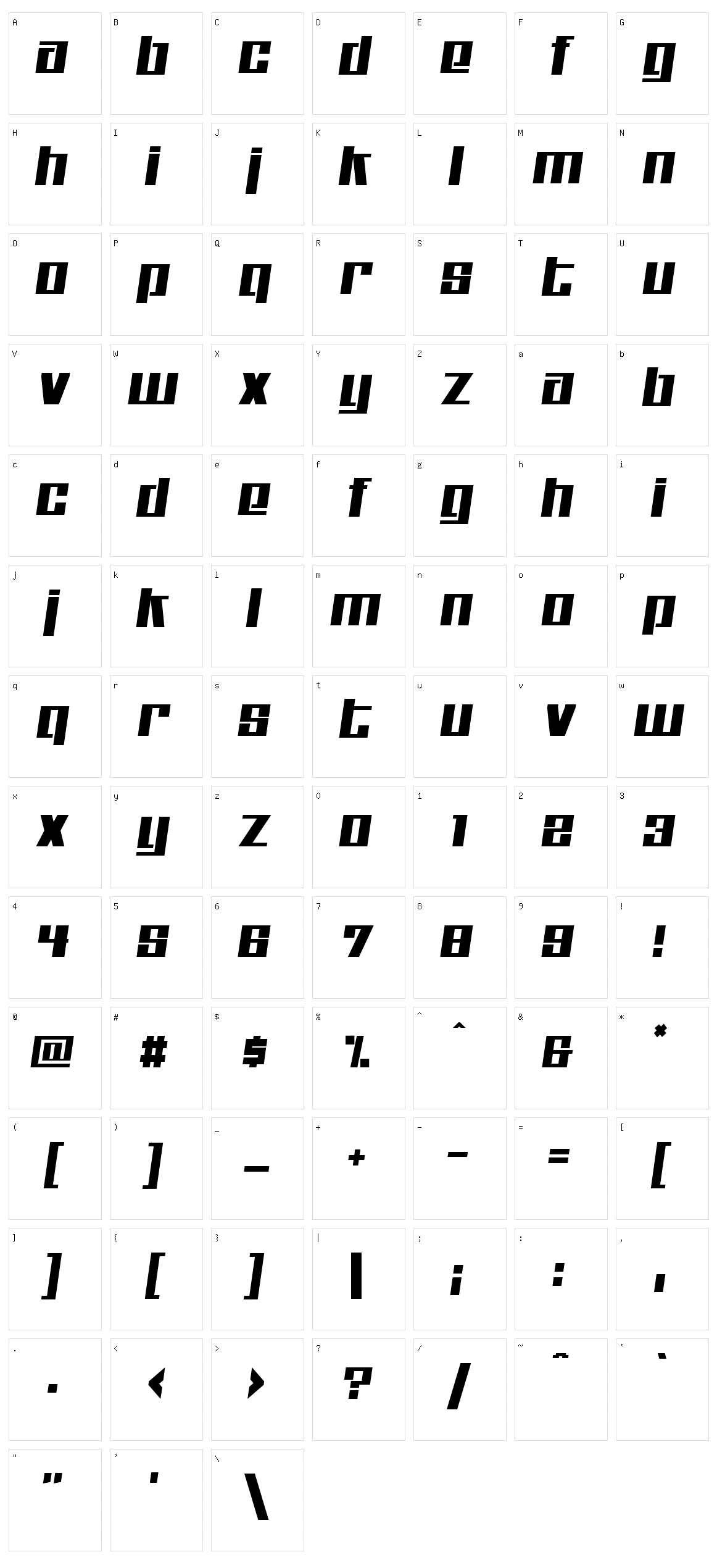
The free font Kitchen Police is carefully designed by Pizzadude, showcasing a thoughtful balance of creativity and usability and falls under the Square font style. When you download the ZIP file, it contains only 8.6 KB of font files, making it lightweight and quick to download. Please review the license details below to understand permitted usage and distribution rights. If license information is not available, we recommend using this font for personal projects only or contacting the author directly for commercial usage permissions.